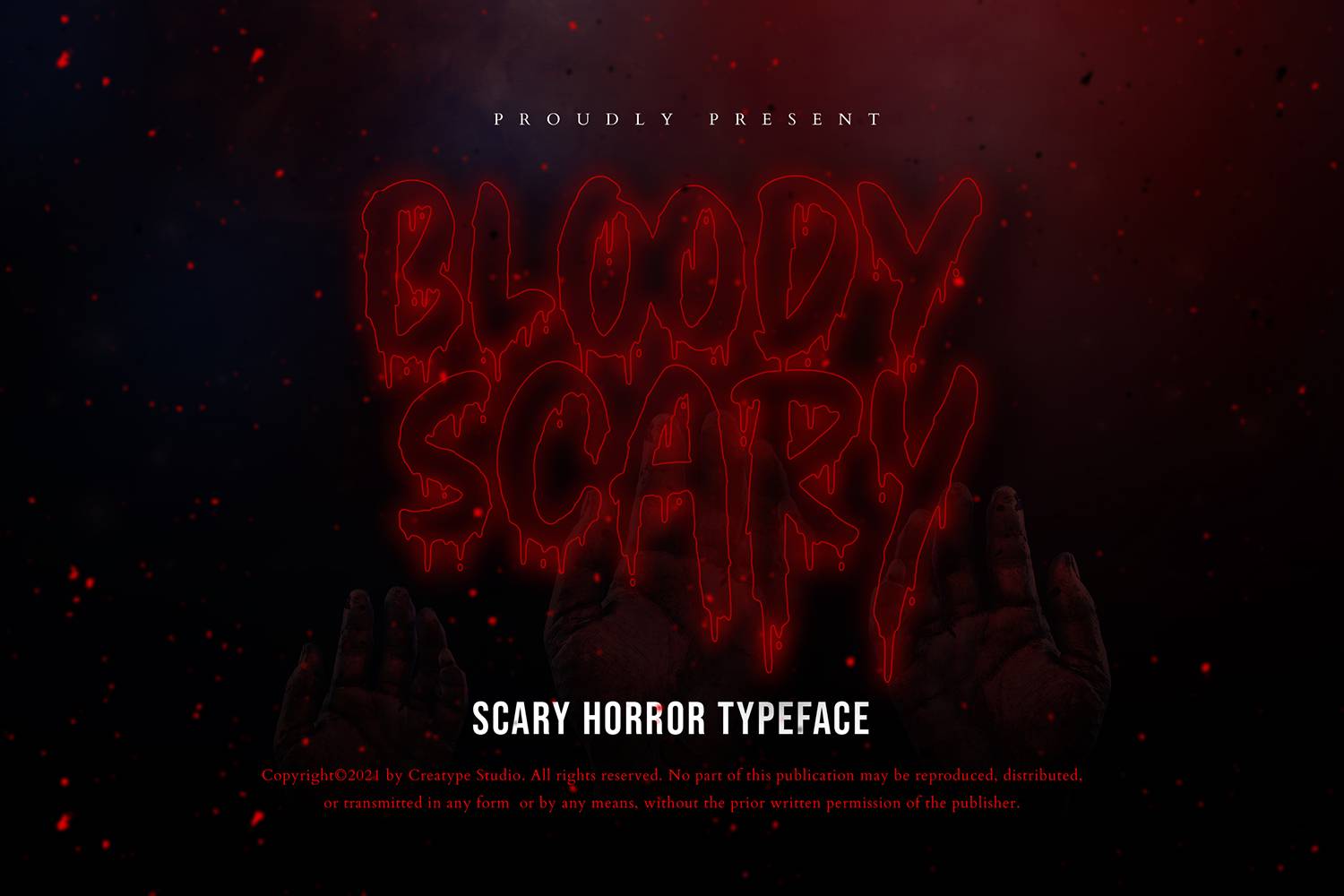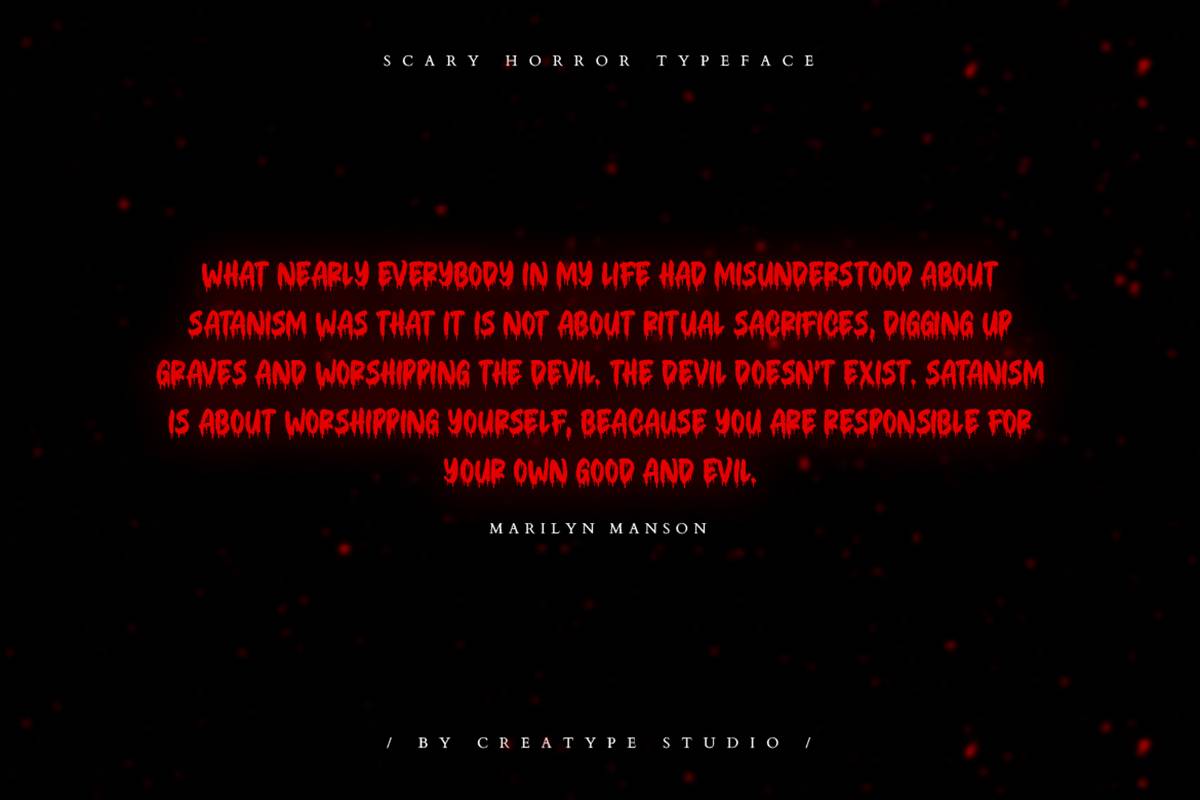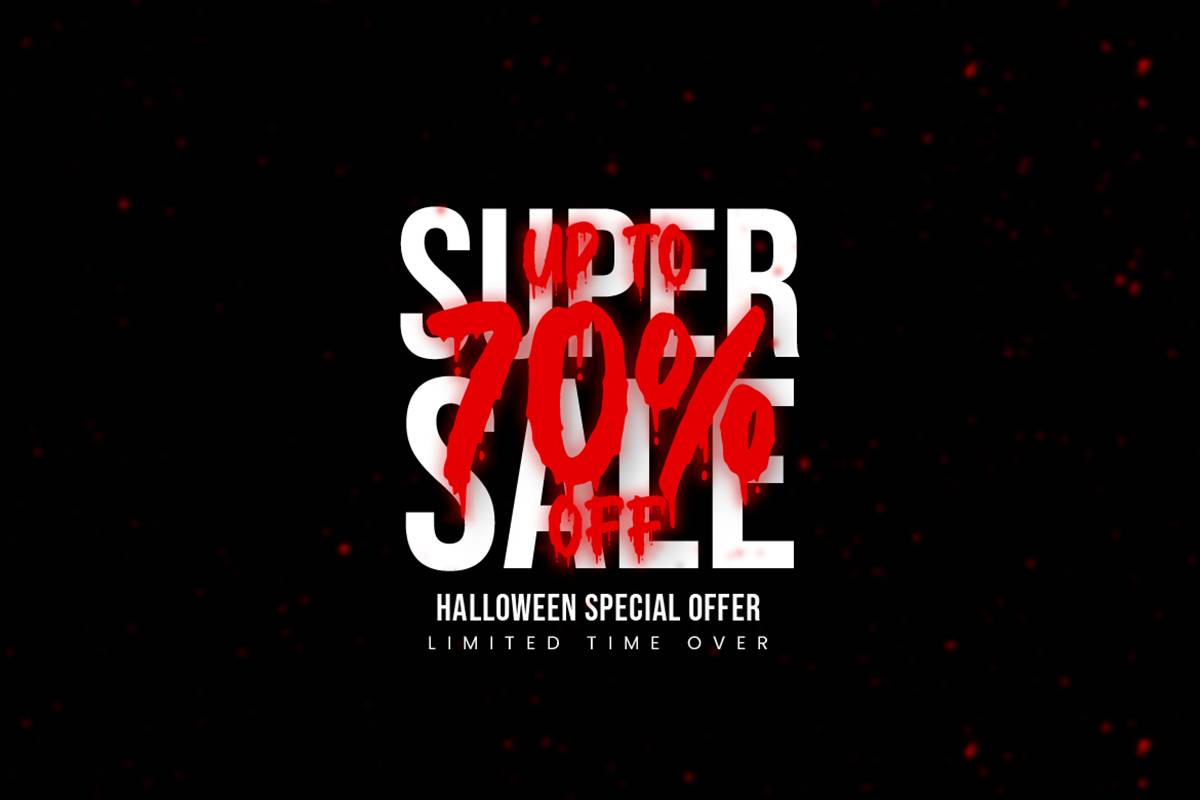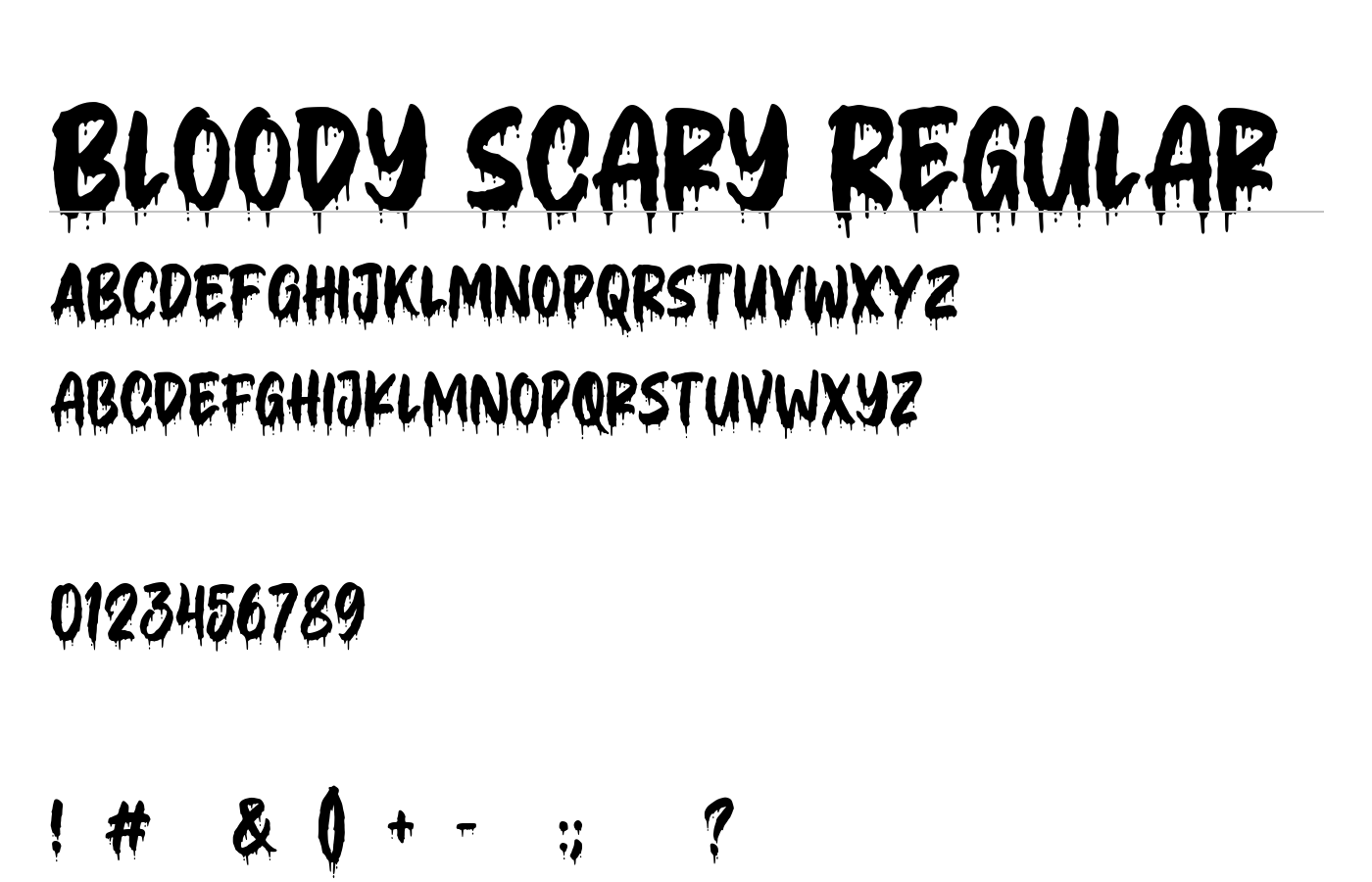
Bloody Scary Font is a bold, dripping display typeface designed to evoke a spooky, horror-themed atmosphere. With its irregular, hand-drawn letterforms featuring sharp, jagged edges and liquid-like drips, it perfectly captures a grungy, eerie vibe. This font works best for Halloween graphics, posters, and branding where a chilling, eye-catching impact is needed.
Bloody Scary Font
About Bloody Scary Font